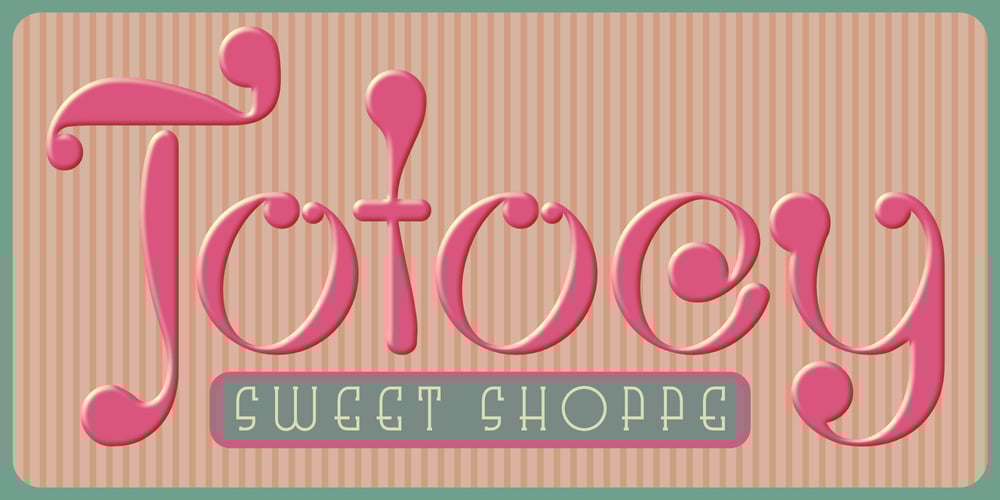
Totoey Font Family was designed by Michael Kovacevich and published by MKGD. Totoey contains 1 styles and family package options. Most of my fonts tend to skew more to the darker side in terms of themes and uses. So, as a challenge, I took it upon myself to design a font through the eyes of my wife. Josephine, having a sunny and carefree disposition, gave this font her blessing as being certifiably fun and cheerful. The name of the font comes from the Cantonese translation for “peach” (tow); and saying it twice (toto) is just a cuter way of putting it. Sort of like “Peachy”. It’s been my nickname for Josephine for as long as I can remember.Totoey has a glyph count of 390 and supports the following languages;Supported Languages:Afrikaans, Albanian, Asu, Basque, Bemba, Bena, Bosnian, Catalan, Chiga, Colognian, Cornish, Croatian, Czech, Danish, Embu, English, Esperanto, Estonian, Faroese, Filipino, Finnish, French, Friulian, Galician, German, Gusii, Hungarian, Icelandic, Indonesian, Irish, Italian, Kabuverdianu, Kalaallisut, Kalenjin, Kamba, Kikuyu, Kinyarwanda, Latvian, Lithuanian, Low German, Lower Sorbian, Luo, Luxembourgish, Luyia, Machame, Makhuwa-Meetto, Makonde, Malagasy, Malay, Maltese, Manx, Meru, Morisyen, North Ndebele, Norwegian Bokmål, Norwegian Nynorsk, Nyankole, Oromo, Polish, Portuguese, Romanian, Romansh, Rombo, Rundi, Rwa, Samburu, Sango, Sangu, Scottish Gaelic, Sena, Shambala, Shona, Slovak, Slovenian, Soga, Somali, Spanish, Swahili, Swedish, Swiss German, Taita, Teso, Turkmen, Upper Sorbian, Vunjo, Walser, Zulu